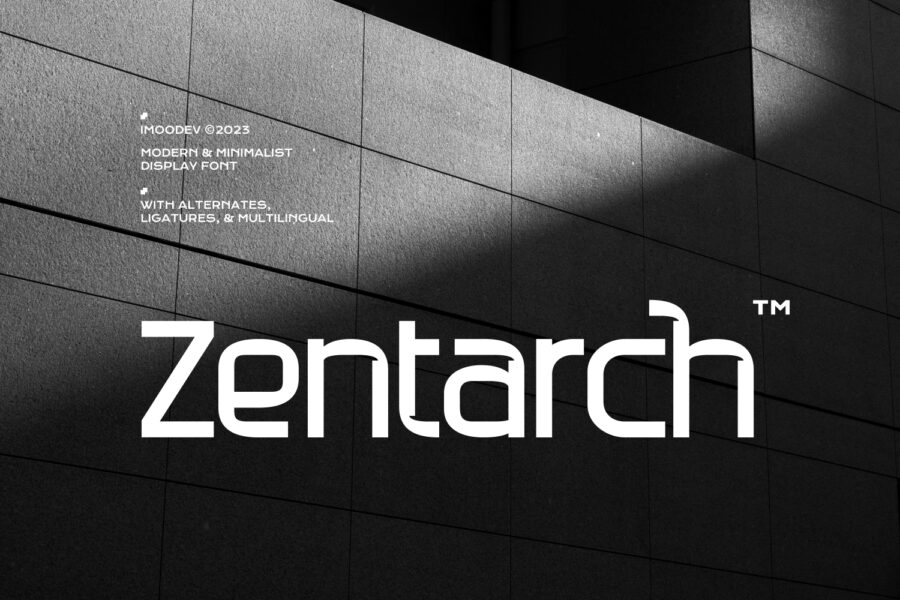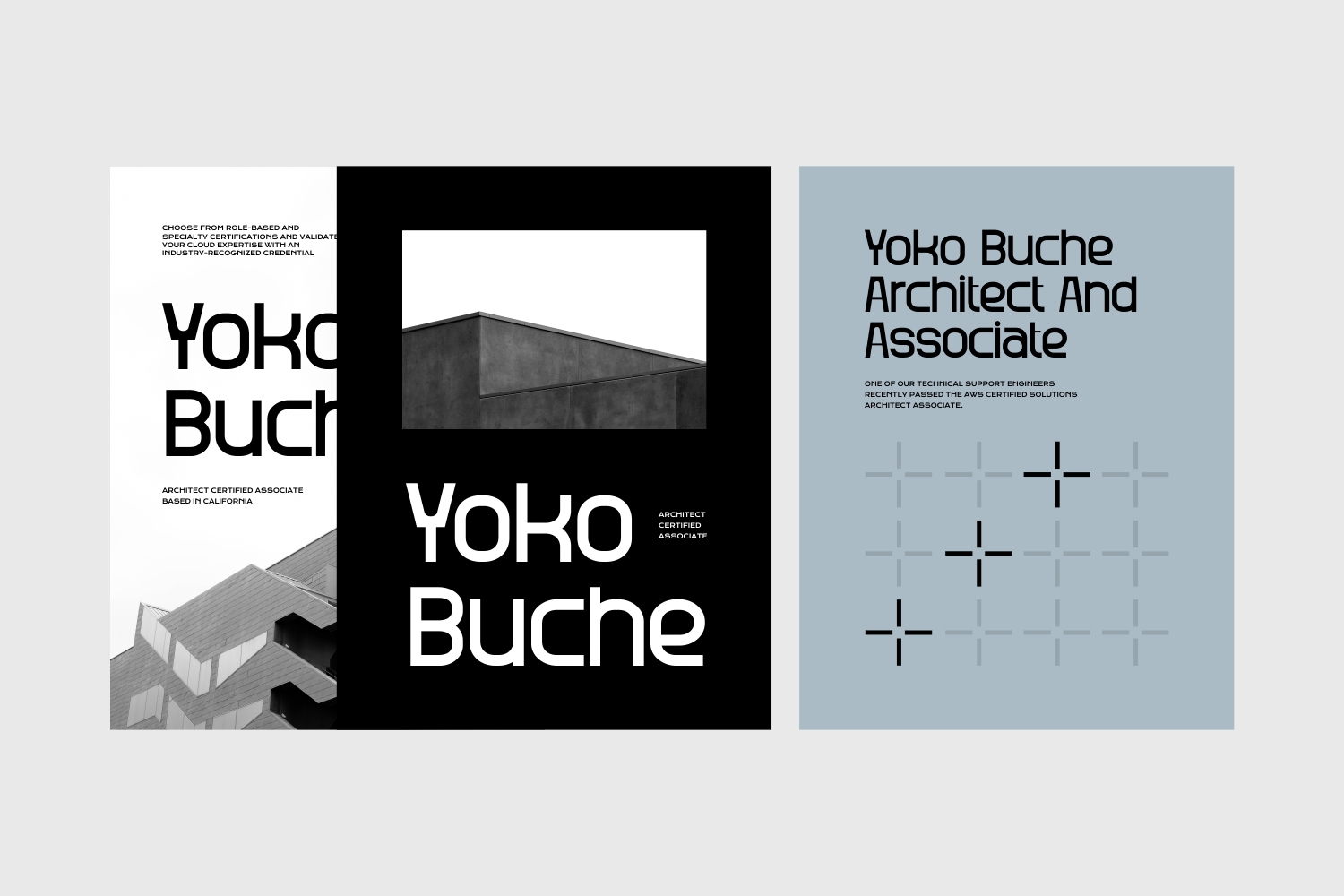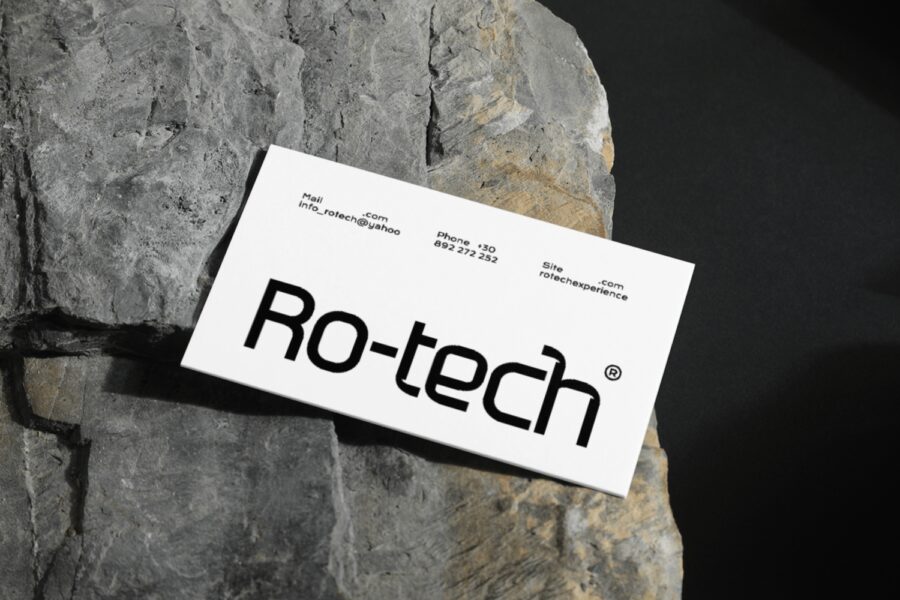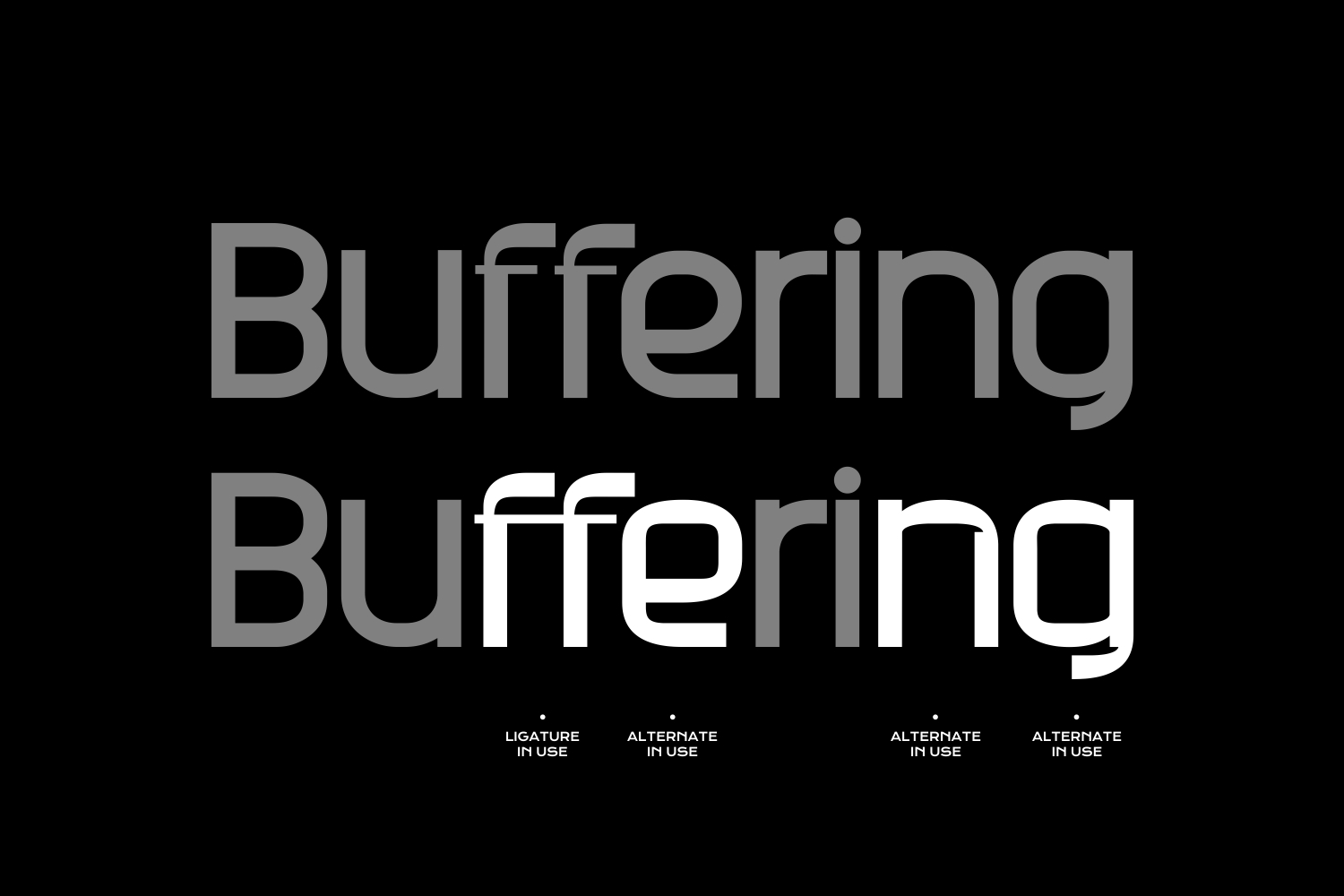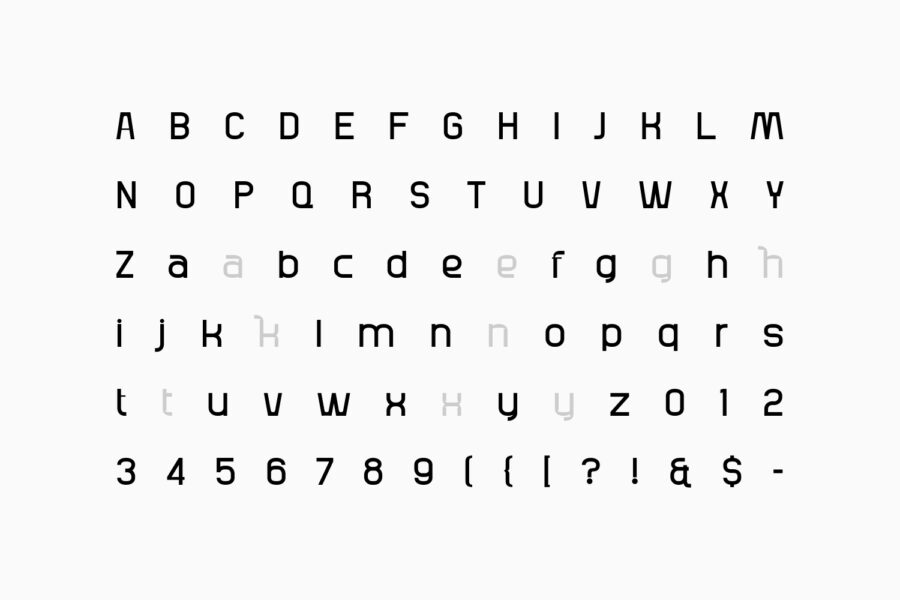
Zentarch is a modern and minimalist display font that blends geometric precision with architectural elegance. Its clean lines, sharp curves, and carefully designed alternates make it ideal for branding, editorial layouts, posters, and professional identity projects. The futuristic yet highly readable design ensures your message stands out with sophistication and clarity.
With its versatile ligatures, alternate characters, and multilingual support, Zentarch adapts seamlessly across design needs. From sleek corporate branding to contemporary tech interfaces. Whether used in logos, magazine headlines, or digital platforms, this typeface delivers a refined, forward-thinking impression that captures attention.